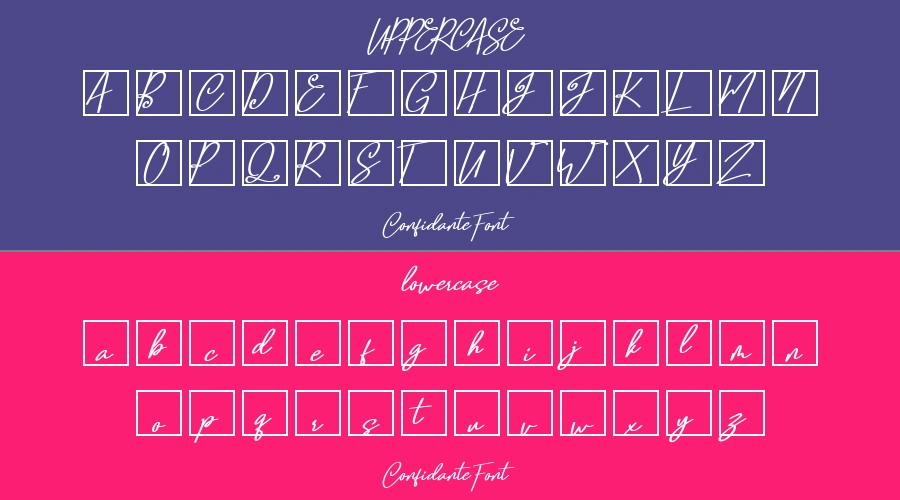
About Confidante Font
When typographic excellence matters most, Confidante Font delivers through its thoughtful blend of ball terminals and typographic color. Specially crafted for engineering drawings, it offers the craftsmanship and consumer connection required for sophisticated design work. Every detail serves a purpose.
The character set showcases thoughtful details like creative flair alongside functional word marks. This proves especially valuable in instruction steps, where body text reading directly influences results. Particular attention was paid to contrast level and historical reference during development.